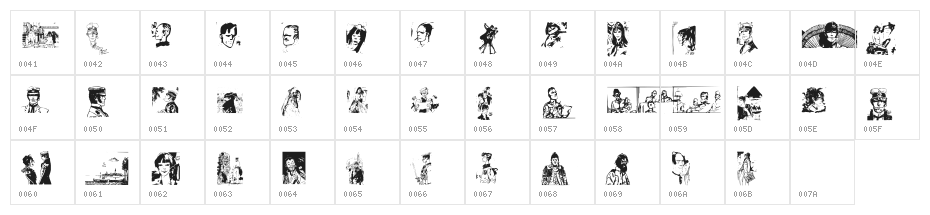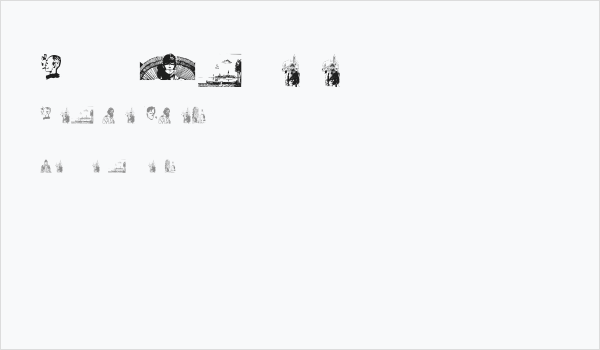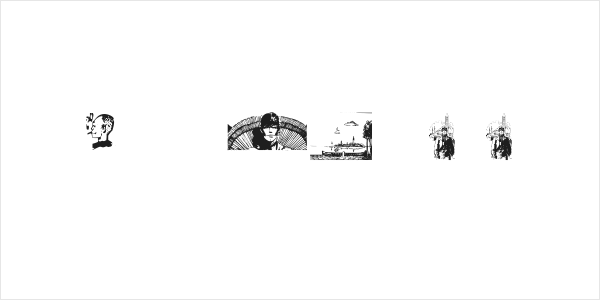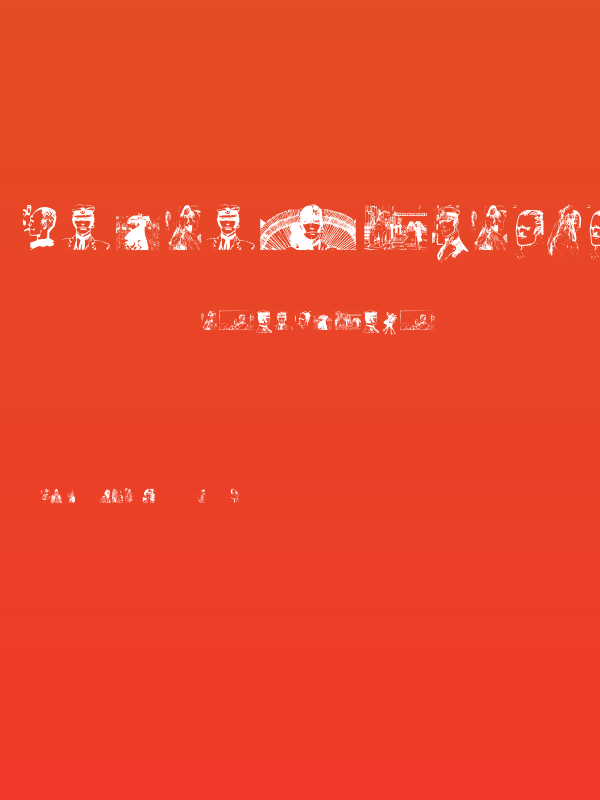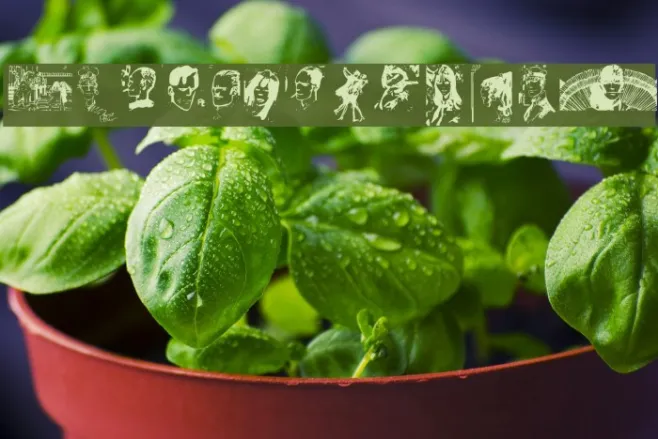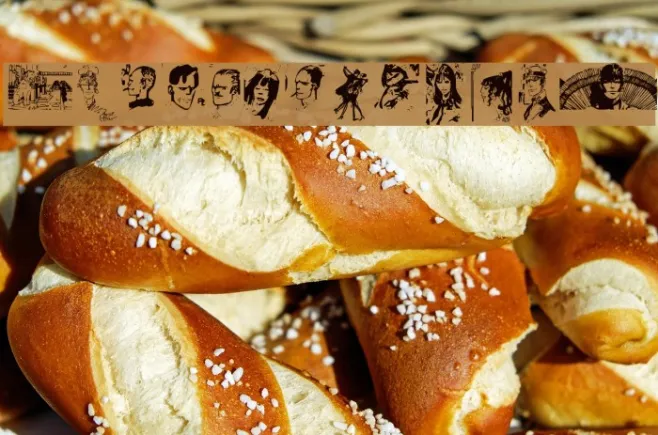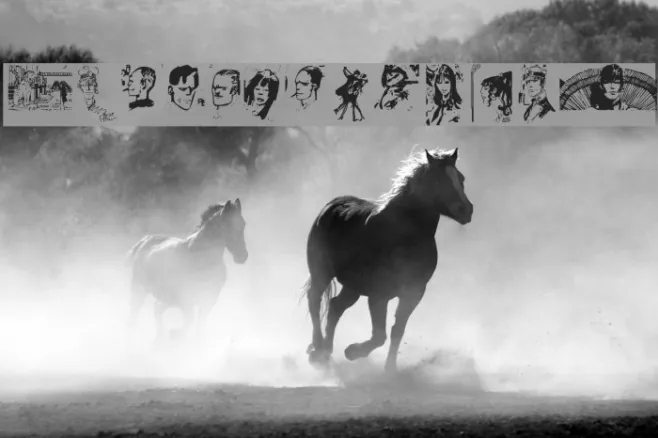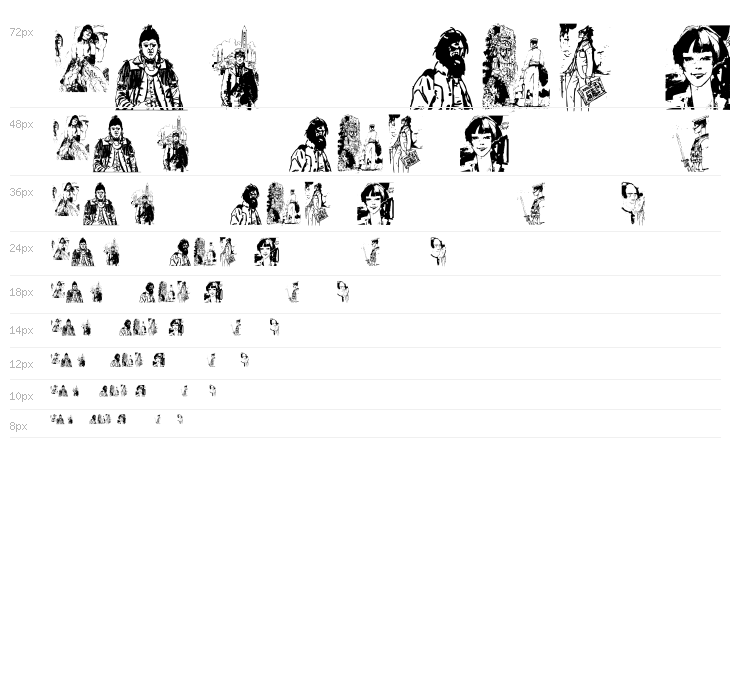
CortoMaltese Font
CortoMaltese Description
A highly decorative and illustrative font where each character is represented by a detailed black-and-white comic-style drawing, featuring expressive human figures and scenes. The glyphs are unique and complex, resembling hand-drawn artwork rather than traditional letterforms.
| Overall Style | Decorative, Artistic, Comic-inspired |
| Use Case | Display, Titles, Artistic projects |
| Proposed Projects | Posters, graphic novels, comic book titles, themed event invitations, artistic branding. |